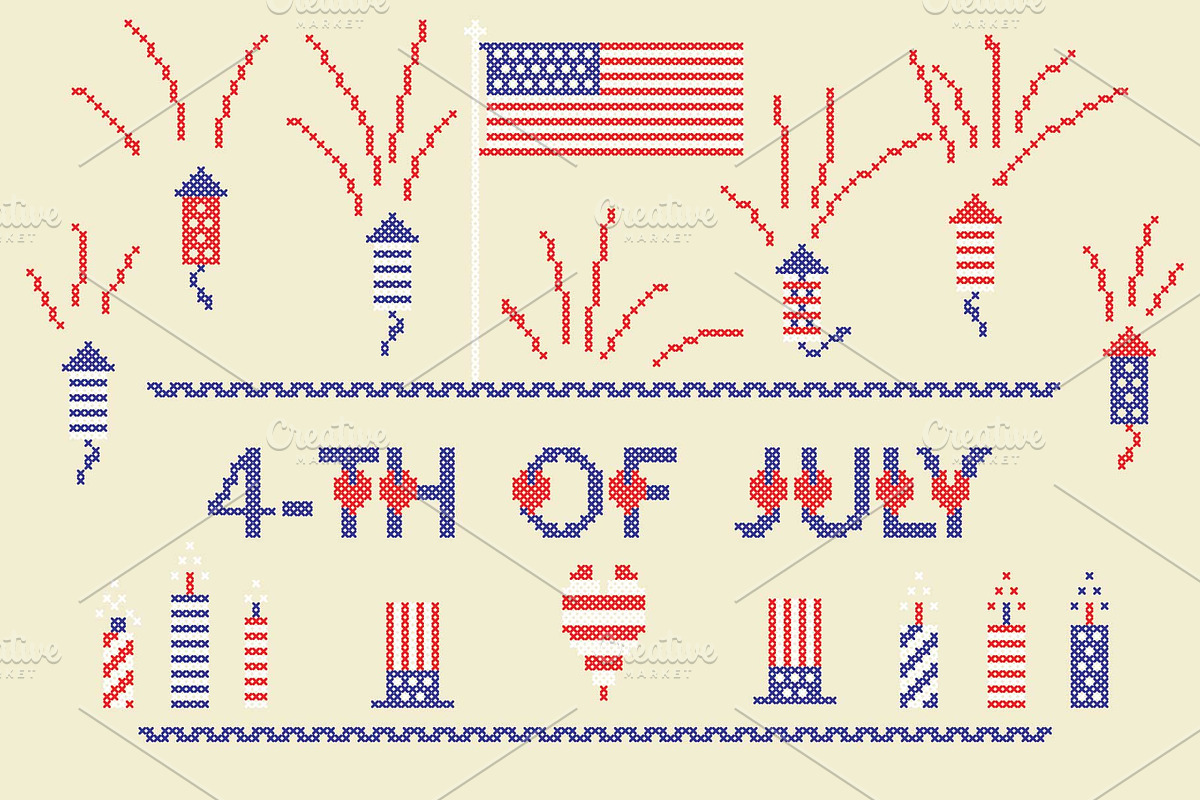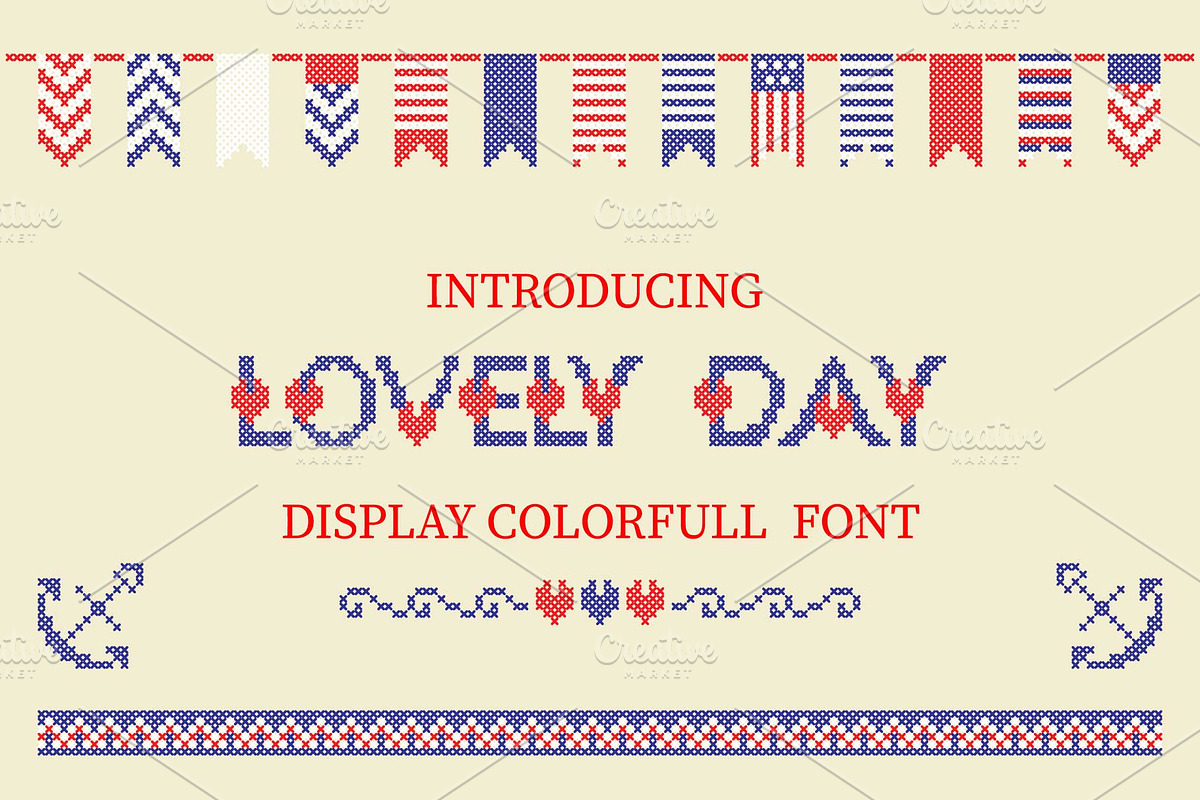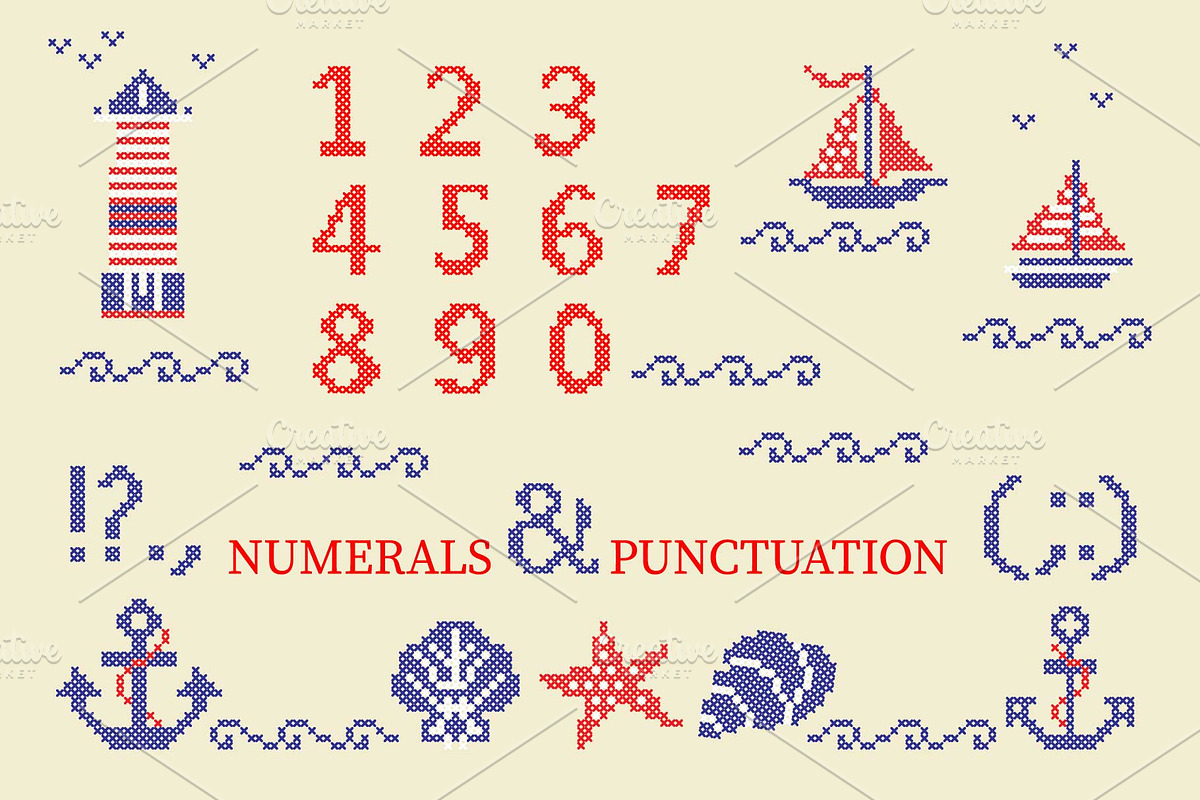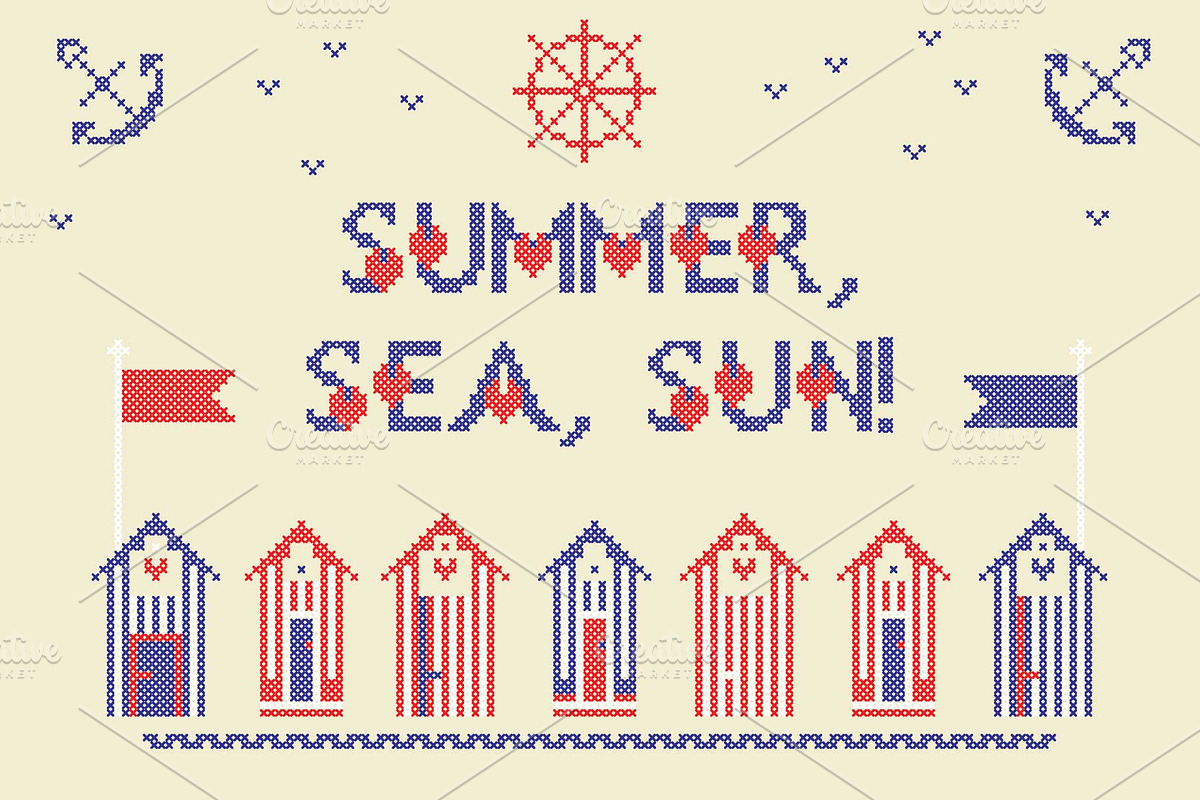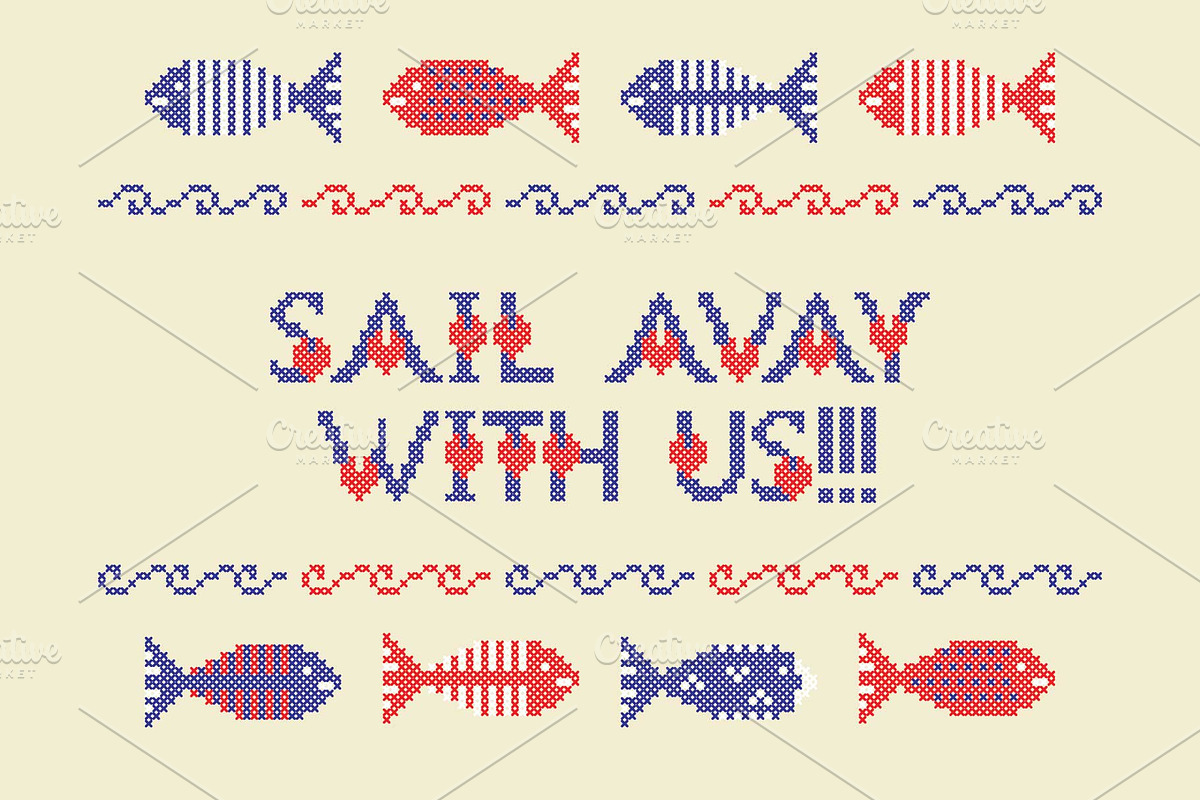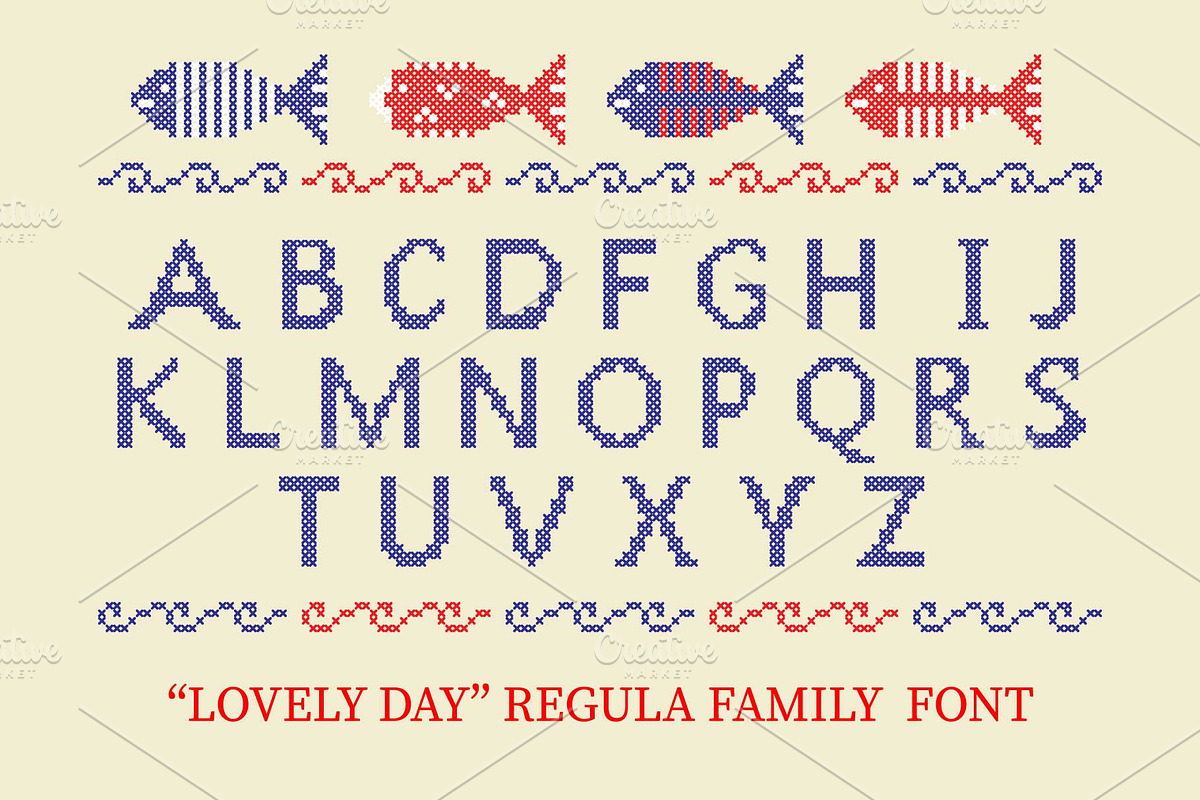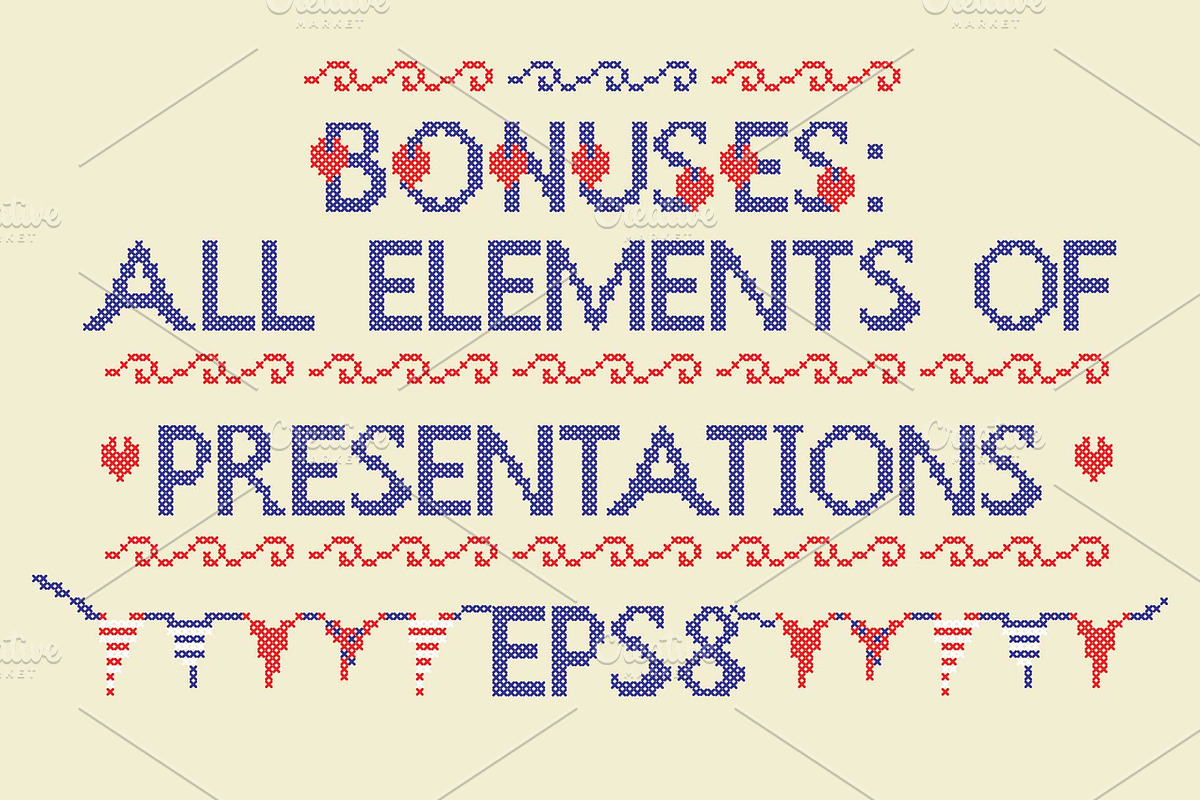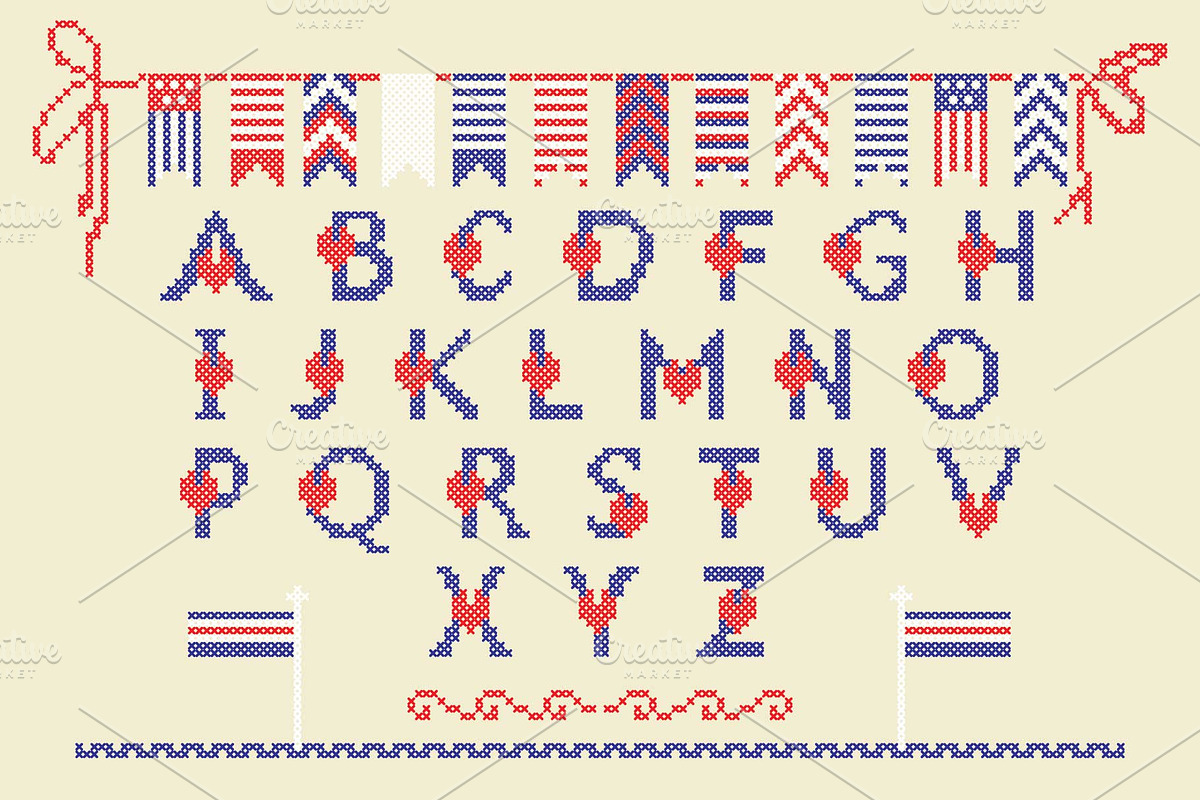
LOVELY-DAY-COLOR-CROSSSTICH font
LOVELY-DAY-COLOR-CROSSSTICH OTF-SVG multicolor font. Modern display grotesque sans-serif font. You can use this font for textile design, quotes, prints on t-shirts, children posters and love cards and… other.
Bonus: Colorful vector alphabet, numerals and punctuations, icon elements (summer, beach, sea and holiday symbols) in cross stich style. With multicolor Vector alphabet, you can manipulate letters in form of vector shapes in Illustrator i.e.
Why LOVELY-DAY-COLOR-CROSSSTICH font is worth a look
LOVELY-DAY-COLOR-CROSSSTICH font by Zimages fits naturally into Branding, posters, packaging, typography.